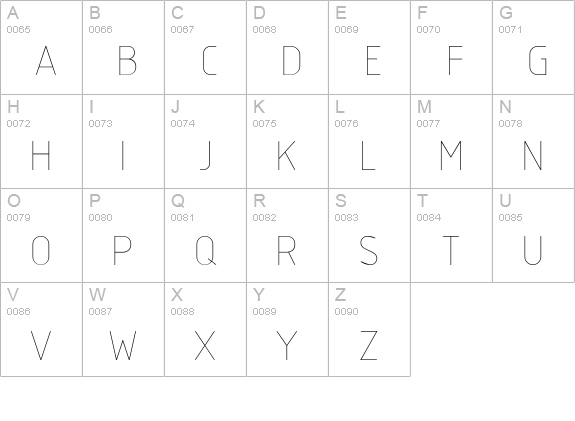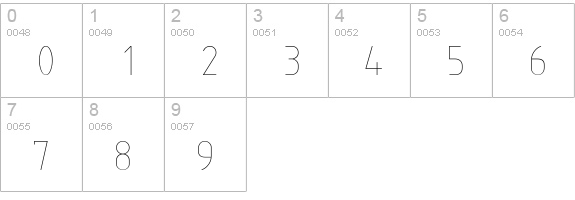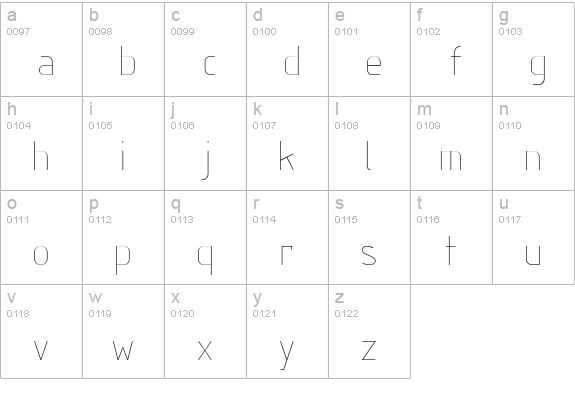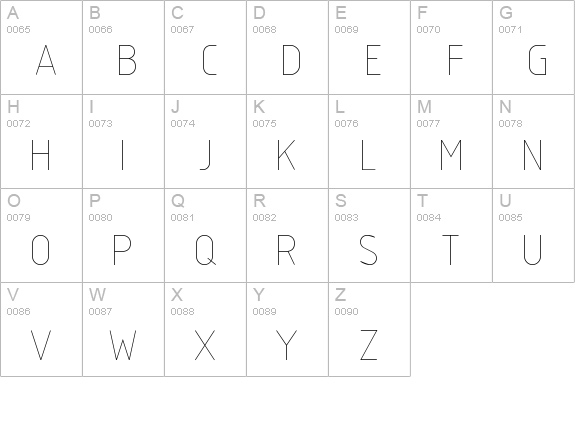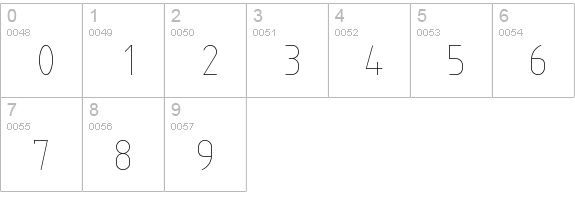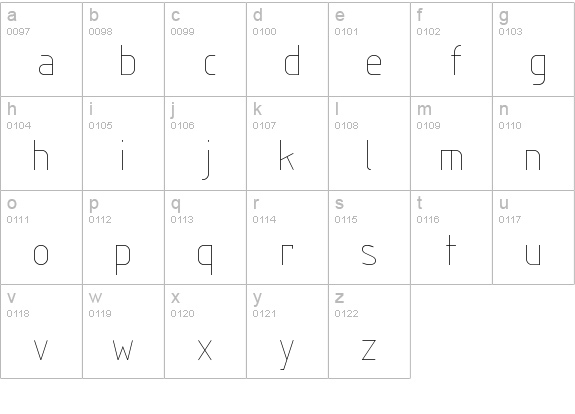
ISOCT is a captivating and versatile font that will elevate any design project to new heights. With its intricate and elegant letterforms, this font exudes a sense of sophistication and creativity. Whether you are working on a logo, branding materials, or a website, ISOCT will add a touch of professionalism and style. What sets ISOCT apart is not only its stunning design but also its availability. This remarkable font is not only visually pleasing but also free. Yes, you read that right - ISOCT is freely available to download at FontsMarket.com. We believe in providing high-quality fonts to designers and creatives without any cost, allowing them to unleash their creativity without any limitations. ISOCT is designed with meticulous attention to detail, ensuring that every curve and line is harmoniously balanced. Its versatility shines through in both print and digital mediums, making it an ideal choice for a wide range of projects. Whether you are creating a striking poster, a captivating magazine layout, or a captivating social media graphic, ISOCT will effortlessly catch the viewer's attention. Its clean and legible letterforms ensure readability, while its unique design elements add a touch of individuality and flair. Download ISOCT today from FontsMarket.com and unlock a world of possibilities. Experience the seamless integration of design and functionality, as this font seamlessly adapts to any project you have in mind. Whether you are a seasoned designer or just starting your creative journey, ISOCT is here to help you make a bold statement and leave a lasting impression. So why wait? Embrace the freedom that ISOCT brings to your designs and let your creativity soar. Download this exceptional font today and elevate your projects to new heights.